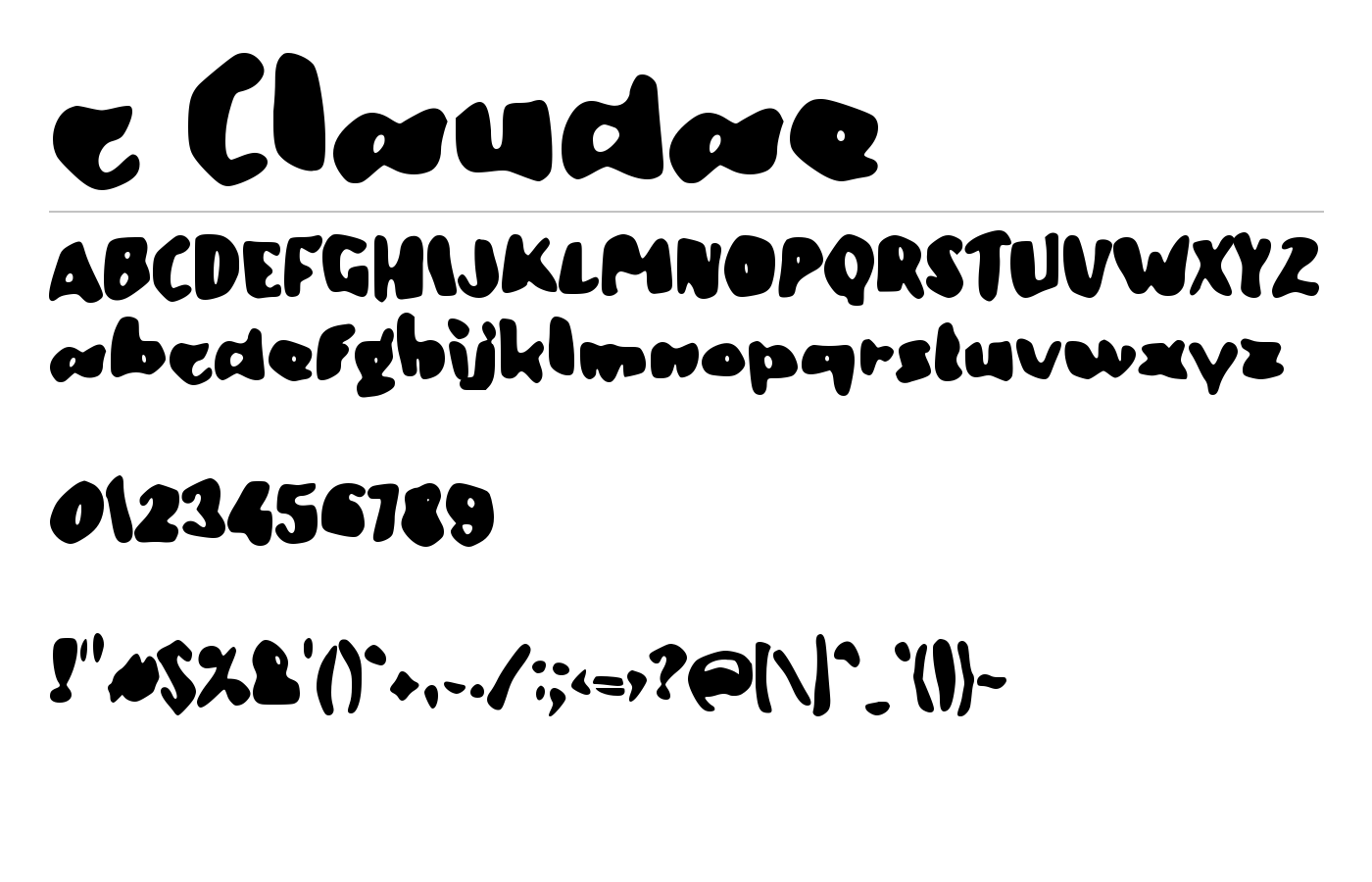
c Claudae is a playful, bold sans serif font with a chunky, organic feel that gives it a friendly and informal personality. Its uneven, hand-drawn shapes and high x-height make it ideal for creative designs that want to convey warmth and approachability, such as kids' products, casual branding, or whimsical posters. This font shines in display uses where its unique charm can stand out and engage viewers.
c Claudae Font
About c Claudae Font